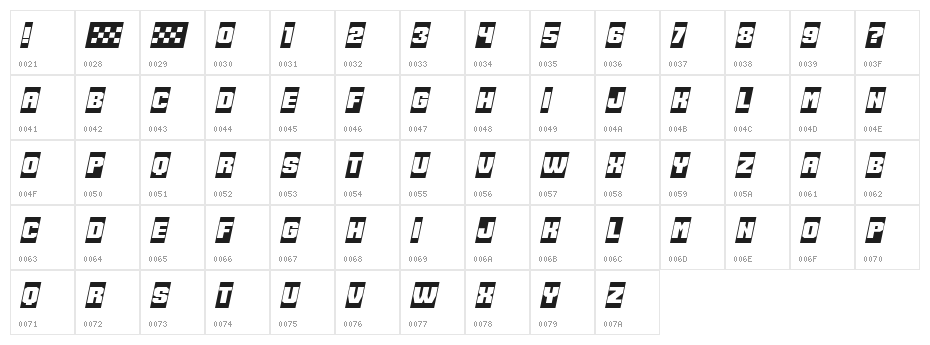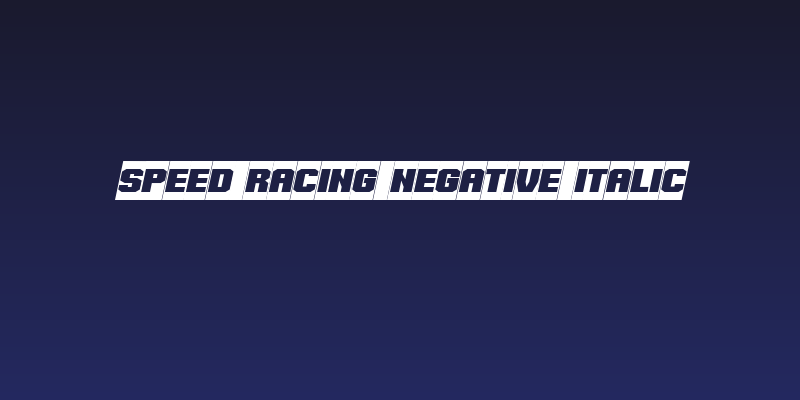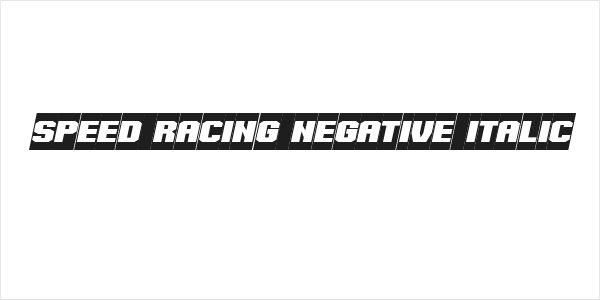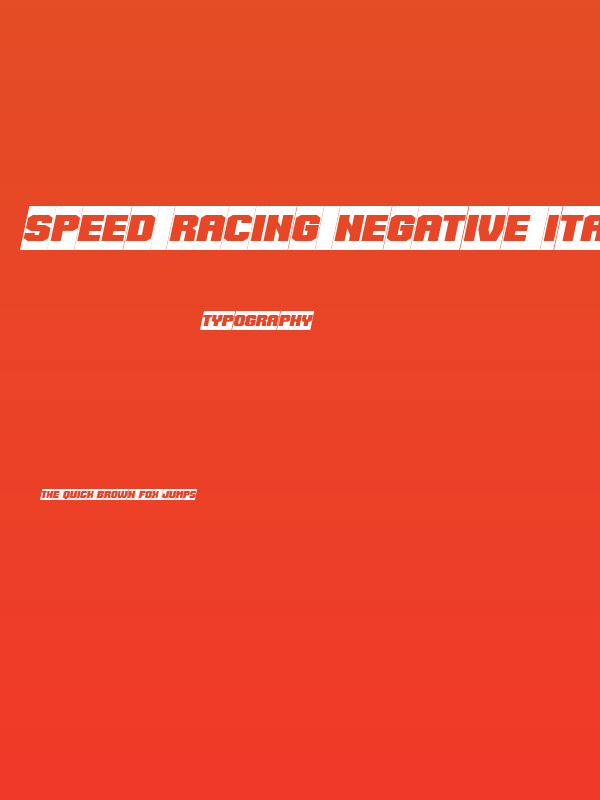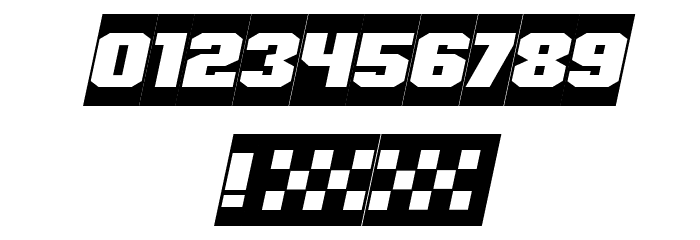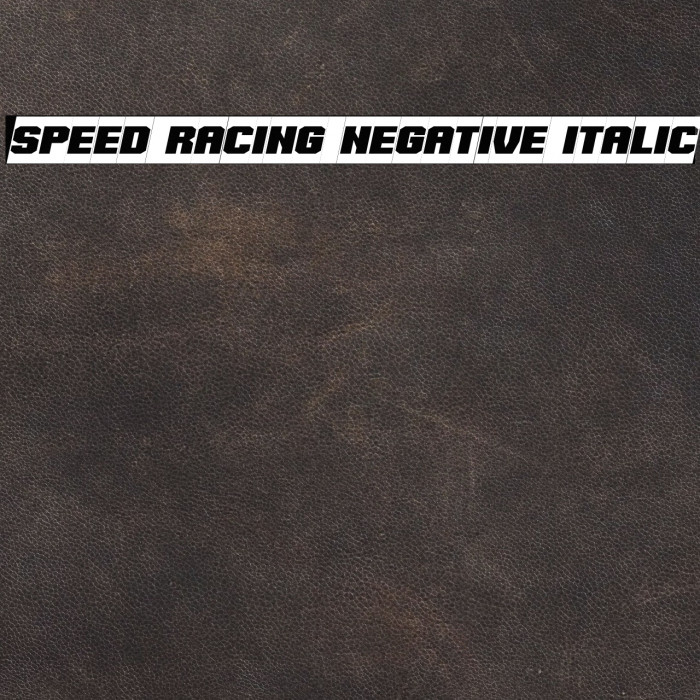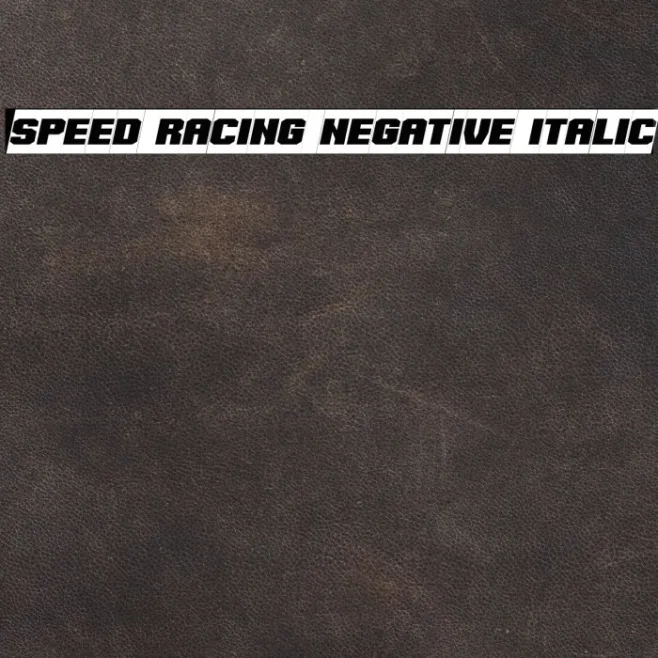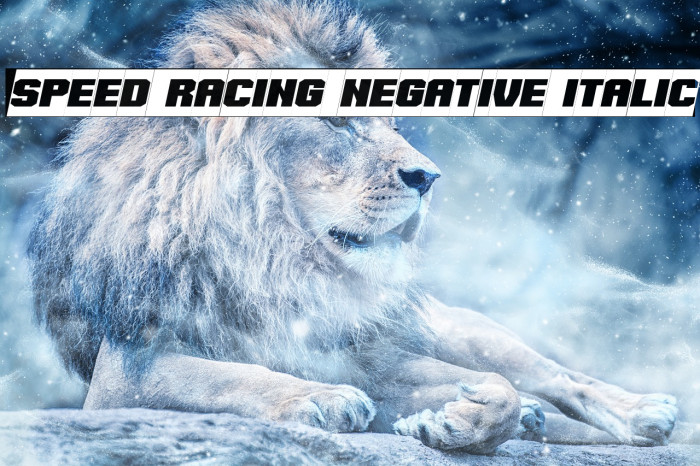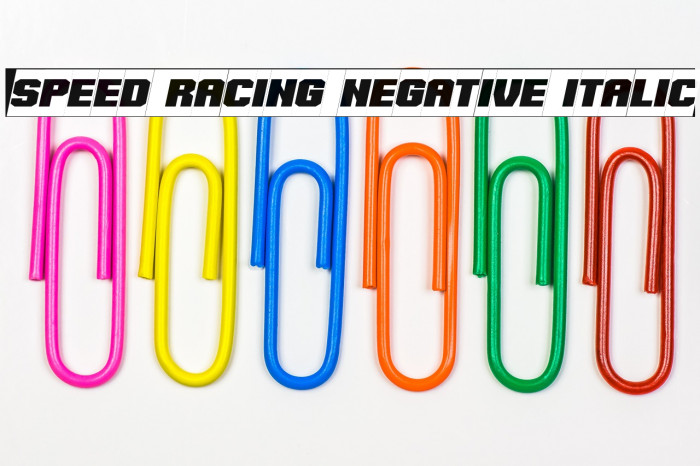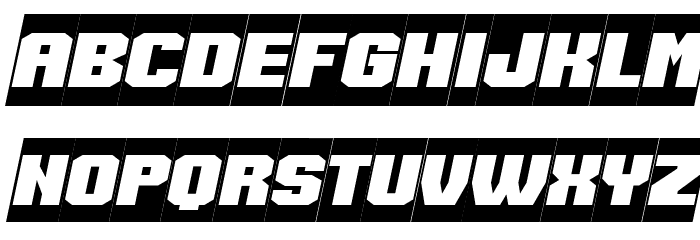
Speed Racing Negative Italic Font
Speed Racing Negative Italic Description
This font exudes a dynamic and energetic vibe, characterized by its bold and italicized letterforms that convey a sense of speed and motion. The angular and slanted design elements enhance its racing theme, making it ideal for projects that require a sense of urgency or excitement. The uppercase letters are particularly striking, with sharp edges and a blocky appearance that ensures high visibility. The numbers and special characters maintain the same stylistic approach, ensuring consistency across all text elements. This font is perfect for creating impactful headlines, logos, or branding materials that need to stand out and capture attention.